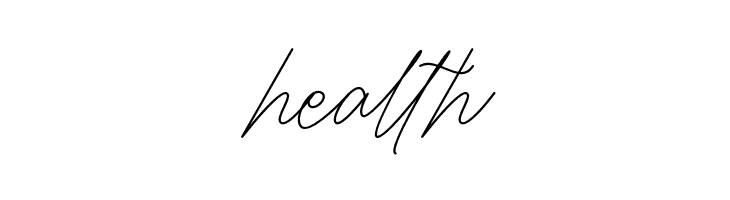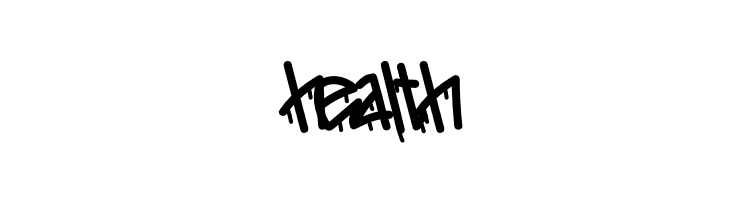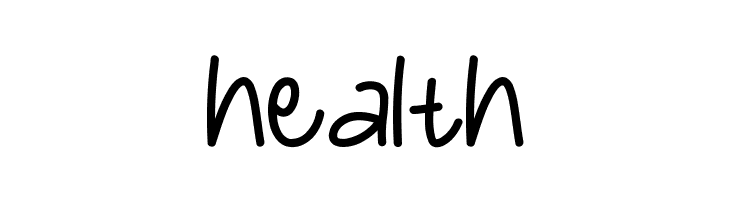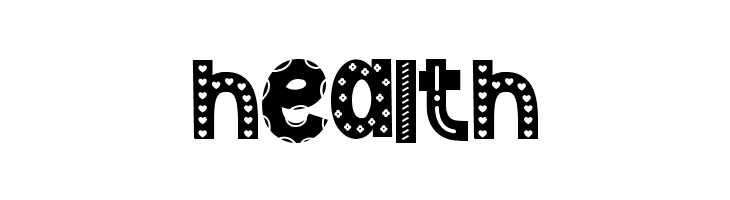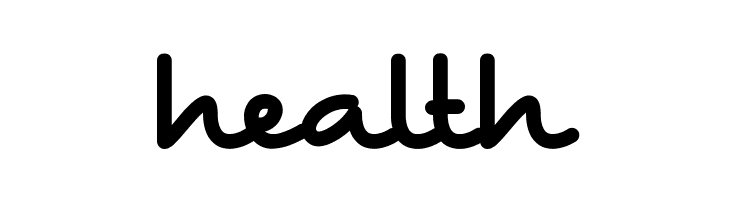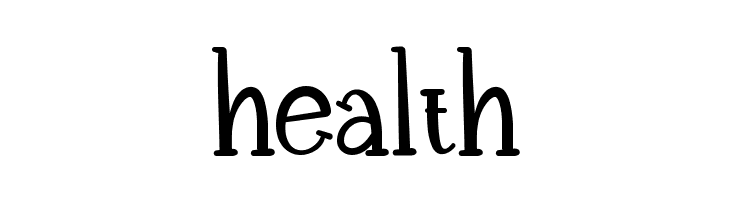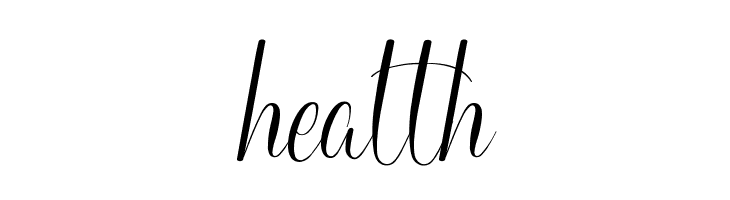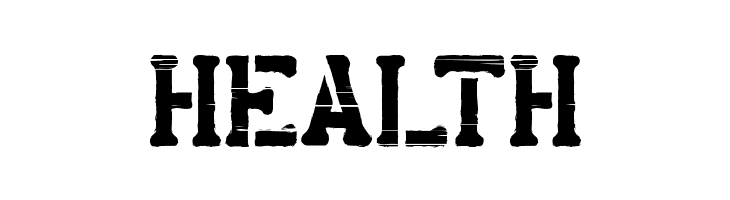
A graceful, cursive script font with elegant loops and swirls.
A bold, graffiti-inspired font with jagged lines and dynamic strokes.
A playful, hand-drawn font with tall, narrow letters and a whimsical style.
A playful and decorative font with whimsical patterns and textures.
A playful, casual handwritten font with smooth curves and a friendly appearance.
A playful, hand-drawn font with a whimsical and dynamic style.
A modern, elegant script font with flowing, cursive characters.
A playful, hand-drawn font with bold, rounded characters and a whimsical style.
A bold, distressed font with a vintage, stamped appearance.
A dynamic and expressive script font with fluid, sweeping strokes and artistic flourishes.